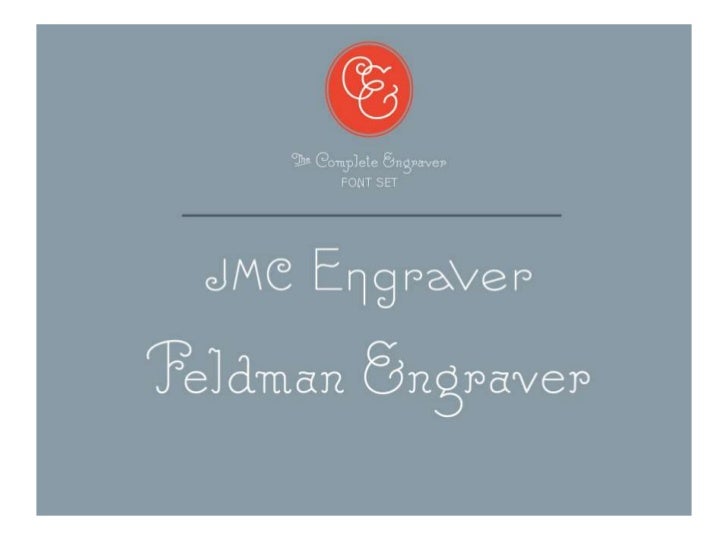
Engraver Font Set by Terrance Weinzierl
Fonts.com is proud to announce two new releases – the JMC Engraver & Feldman Engraver typeface families – by Monotype Imaging designer Terrance Weinzierl. Commissioned as companions to Nancy ...
Fonts.com is proud to announce two new releases – the JMC Engraver & Feldman Engraver typeface families – by Monotype Imaging designer Terrance Weinzierl. Commissioned as companions to Nancy Sharon Collins’ new book The Complete Engraver: A Guide to Monograms, Crests, Ciphers, Seals, and the Etiquette and History of Social Stationery, these fonts are FREE for download from Fonts.com. Simply add to your cart and enjoy: http://www.fonts.com/browse/promotions/the-complete-engraver.
With 224 pages, and 180 illustrations, The Complete Engraver is both an archive, as well as celebration, of the art of engraving, from its origin to contemporary practice. A designer & authority on engraving, Collins also provides insight on the evolving role of social stationery in today's age of electronic correspondence. The JMC Engraver & Feldman Engraver typefaces, featured below, are a testament to bridging this analog and digital divide.
Of the fonts’ development, Weinzierl explains: “The designs Nancy proposed were a selection from ‘masterplates’, or lettering templates used for manual engraving machines. The design process started with scanning prints made with engravings. I redrew the shapes with singular, vector lines — an approach similar to the line drawn by the engraver. These designs have a Victorian soul with a typographic body.”
Indeed, the aesthetics of both the JMC Engraver & Feldman Engraver typefaces appear to not simply be inspired by—but, rather, channeled through—the visual ethos of the engraver. The pair of typefaces remain true to the proportion, rhythm and grace of antique engraved letterforms. develop the structure of the letterforms further, Weinzierl adds: “We added a precise stroke weight to that line; to put it simply, we dug the dirt away, rebuilt the skeleton, and put the muscle back on. As a designer, the revival projects I’ve done have not only helped me understand typographic history better, but helped me draw better curves and build better fonts.”
Stylistic alternate characters, as seen above, enhance the versatility as well as visibility of the fonts – in addition to both designs providing distinct airs of engraving’s elegance, the typefaces possess an unmistakable kinetic energy. As Weinzierl notes: “JMC Engraver & Feldman Engraver have that handmade feel, and they flaunt it with exuberant curves and curls. I don't think it’s a coincidence that we indulge in these organic designs when we get a chance, as it's very different from our daily challenges requiring pixel perfection.”